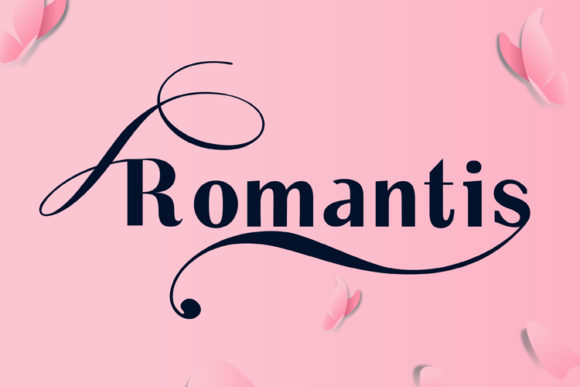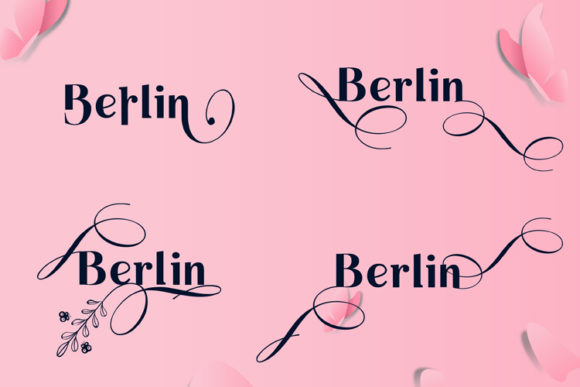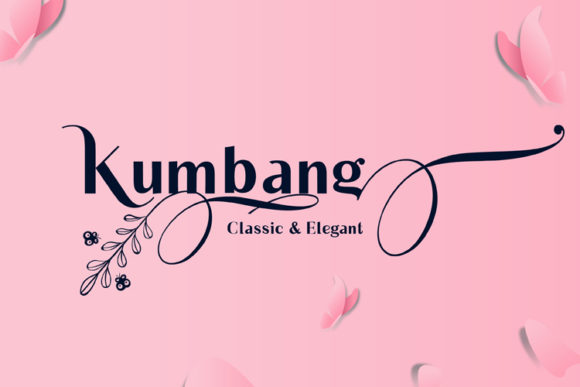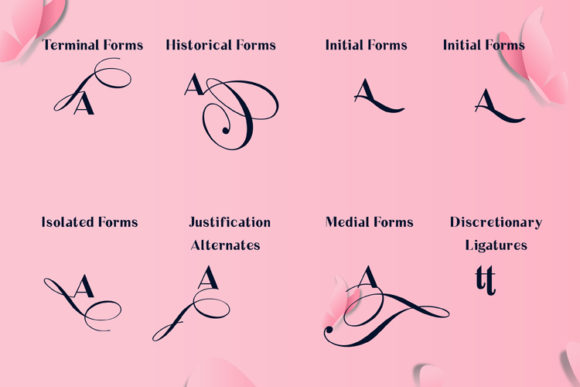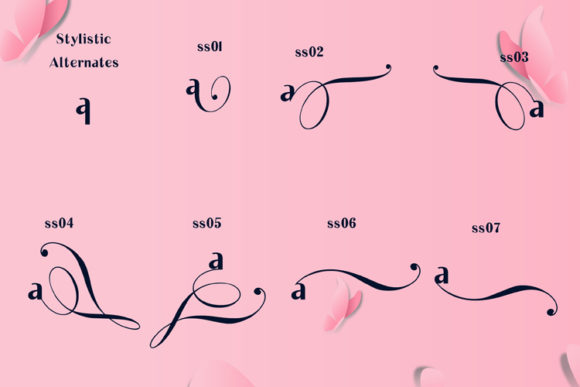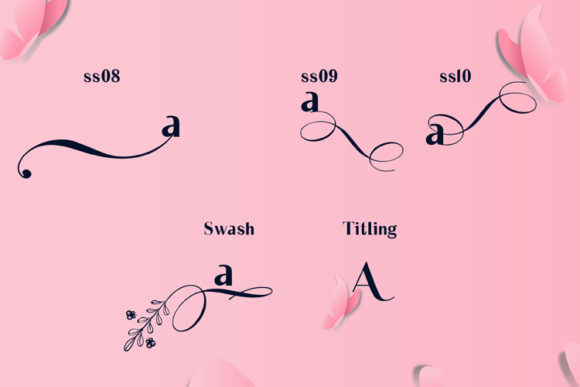
Introduction to Historyal Font
Historyal is a serif font that combines a classic font style with a touch of minimalism.
It features stunning ligatures and 700 alternates, allowing you to create fantastic logos, posters, covers, t-shirts, business cards, wedding cards and much more .
Key Features of Historyal Font
Why Choose Historyal Font?
Historyal Font offers exceptional quality and versatility, making it a valuable addition to your design toolkit. Whether you’re creating for personal projects or commercial use, Historyal Font delivers professional results.